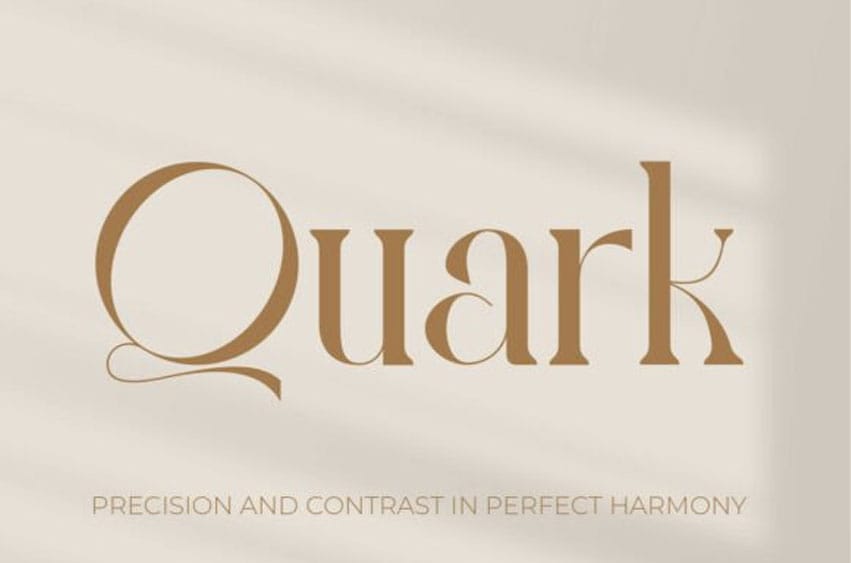
Quark Serif Font is a stunning luxury stencil serif font designed to bring unparalleled elegance and sophistication to your creative projects. Characterized by its striking high-contrast strokes and unique geometric stencil cutouts, Quark is the perfect choice for high-end branding, wedding invitations, chic logo designs, and editorial layouts.
This premium typeface masterfully balances classic serif beauty with a sharp, contemporary edge. Whether you are designing for jewelry brands, high-end home decor, or digital marketing campaigns, Quark adds a touch of class and exclusivity to every character.